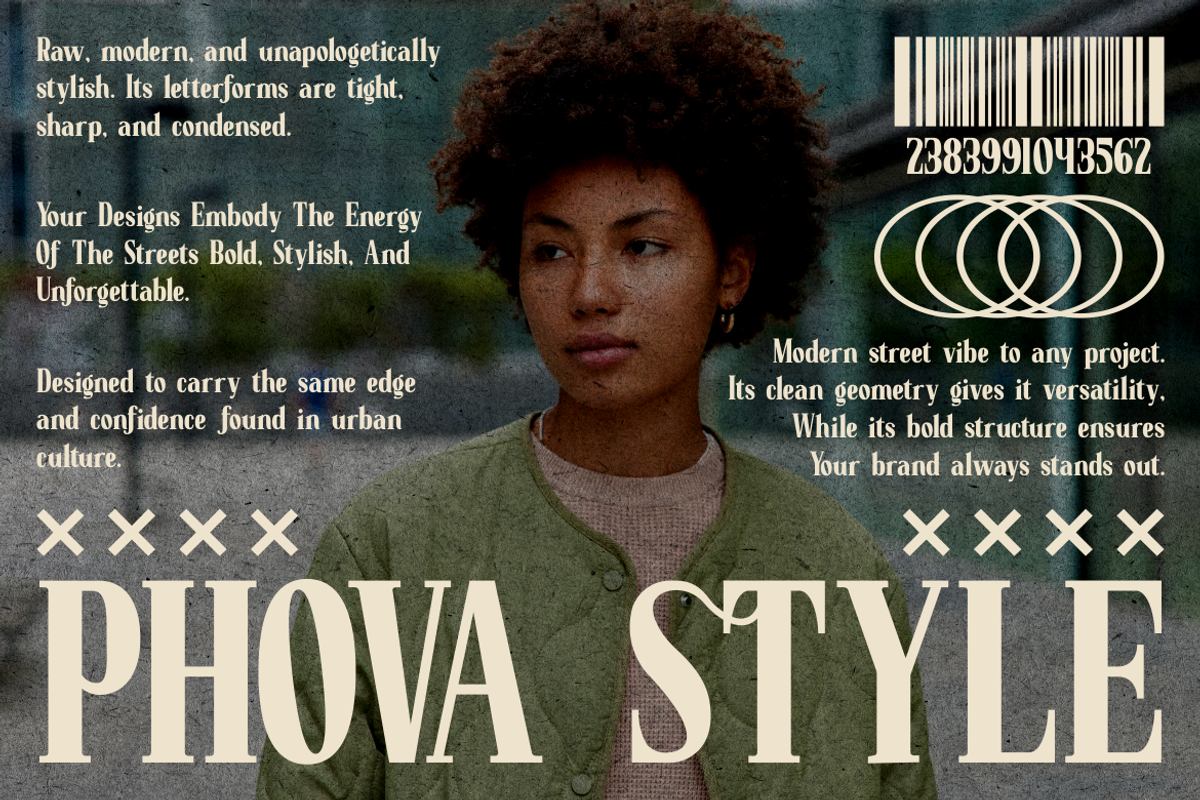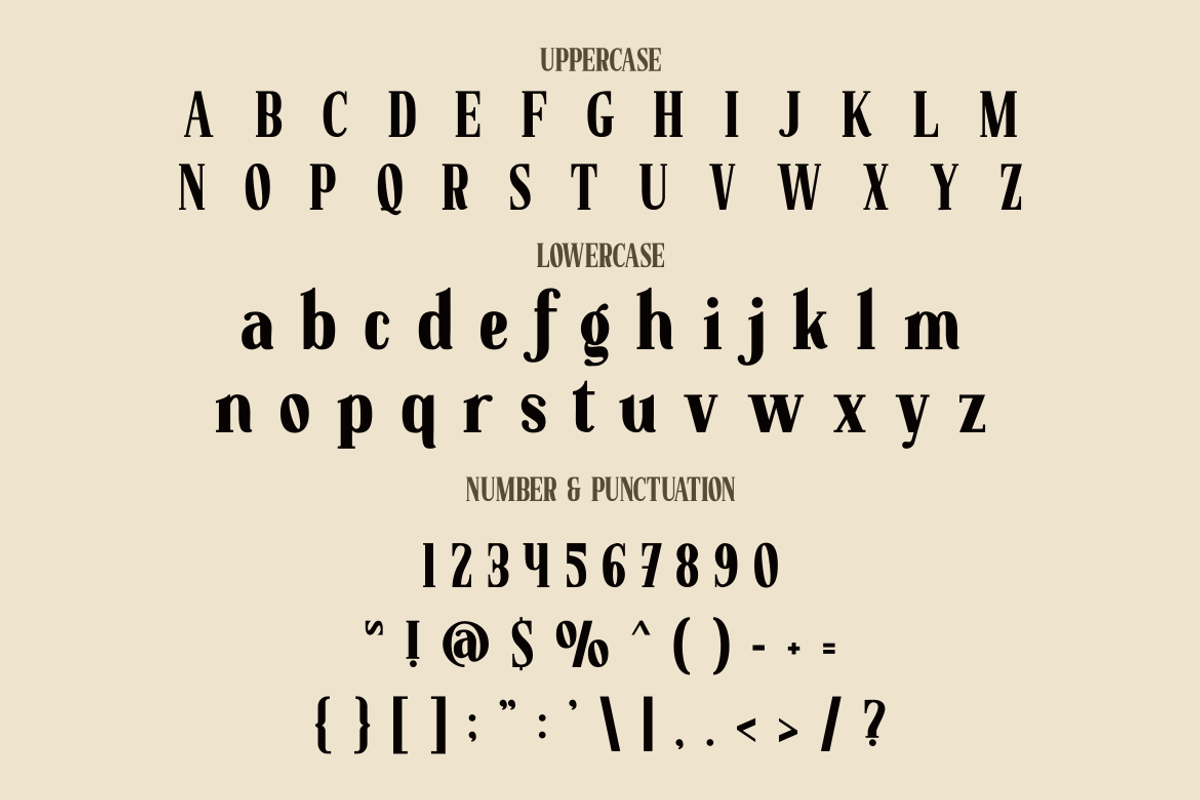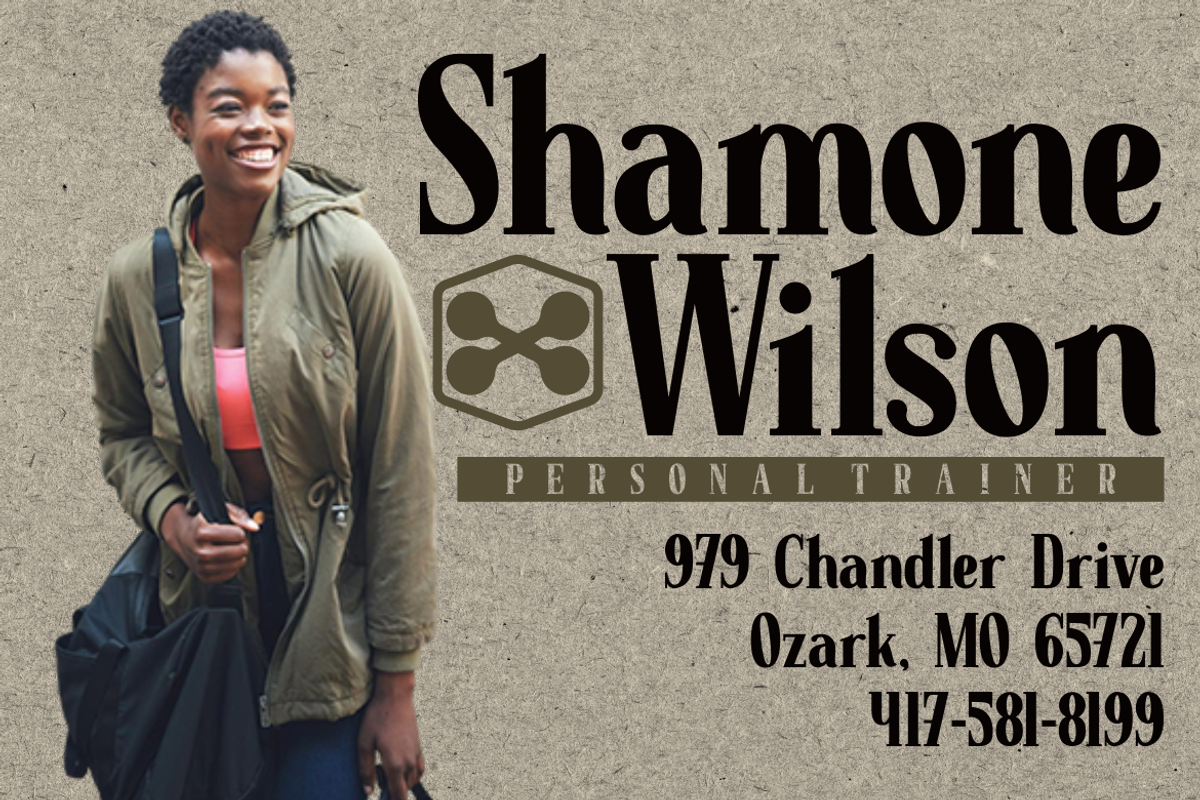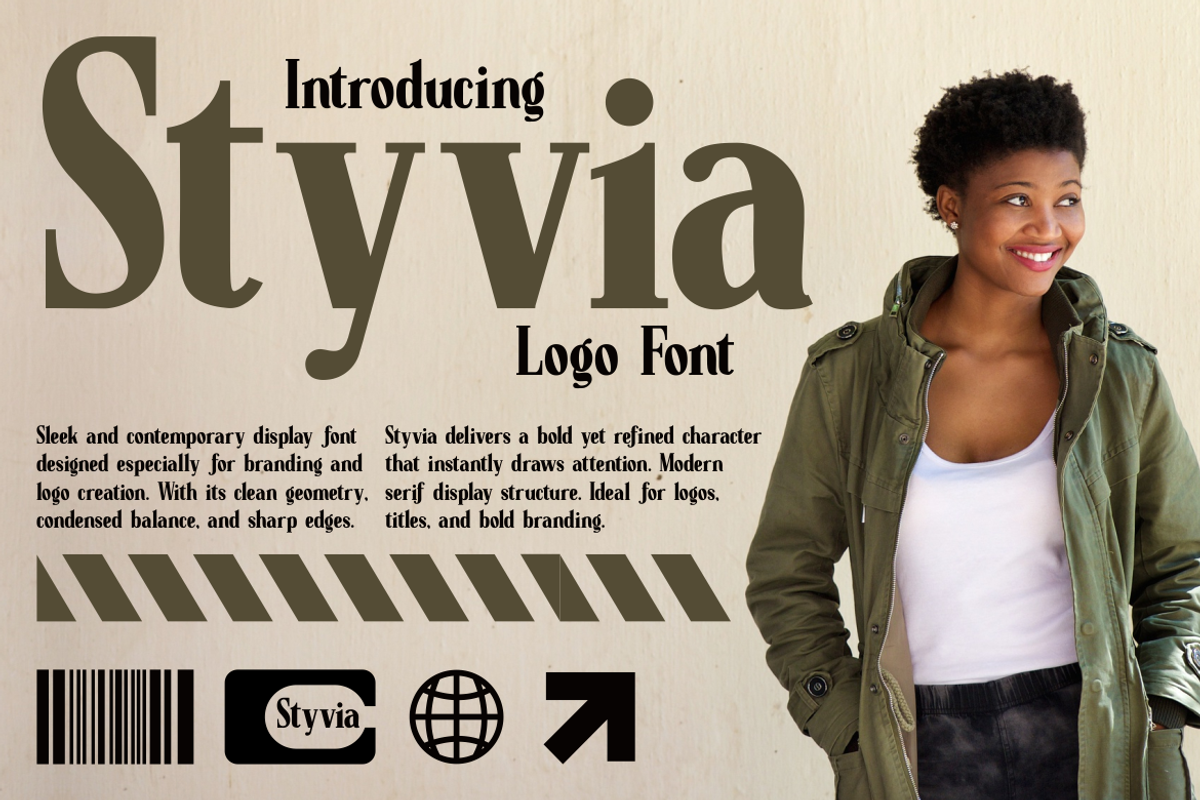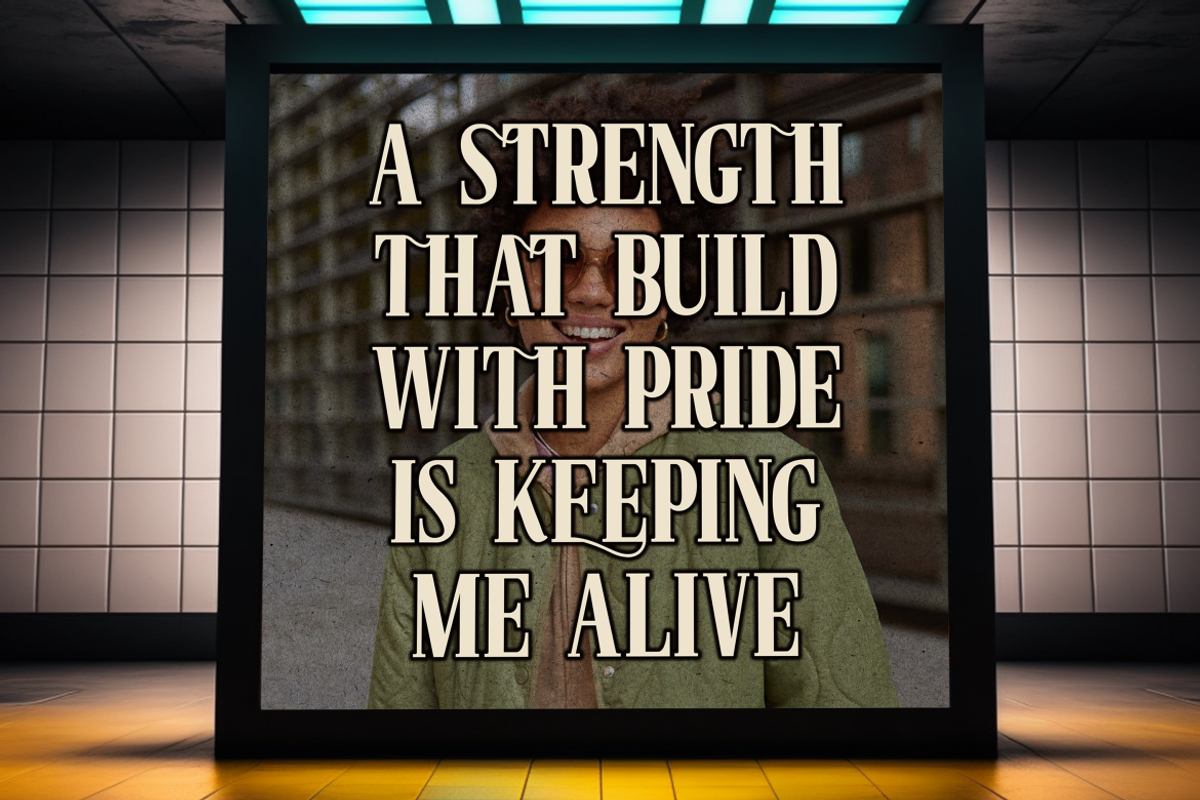
Styvia Logo Font
Styvia Logo Font brings a refined serif style built for modern branding with strong visual clarity. Its tall and condensed letterforms create a confident presence that suits identity design work. Each character shows sharp edges, controlled curves, and clean proportions, giving the font a balanced structure. The serif shapes feel bold yet elegant, offering a blend of modern strength and classic appeal. The font keeps a tight construction that supports high readability even at smaller sizes. This design approach makes the typeface ideal for logos, titles, packaging layouts, magazine covers, and bold business identities. Every stroke carries a crafted precision that supports a premium brand impression without losing warmth.
Styvia Logo Font works especially well when designers need a memorable and polished serif style. Its geometry supports clear alignment, while the condensed width offers more space efficiency in long names or stacked compositions. The font fits lifestyle branding, editorial layouts, advertising headlines, corporate design, product labels, and creative visual storytelling. The contrast between thick and thin strokes adds rhythm and gives each character a strong voice. This combination creates a font that elevates any modern brand direction with clarity and style. Styvia Logo Font supports projects that demand elegance, confidence, and a timeless serif feel.